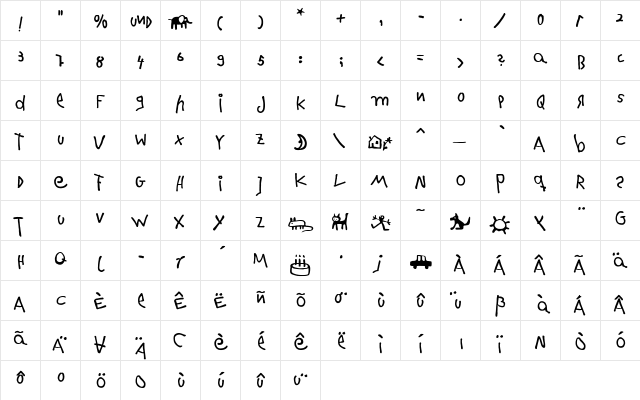
Hansel Medium
Design Context for Hansel Typeface
Hansel is a composed and adaptable typeface that performs quietly and consistently across a wide range of design contexts.